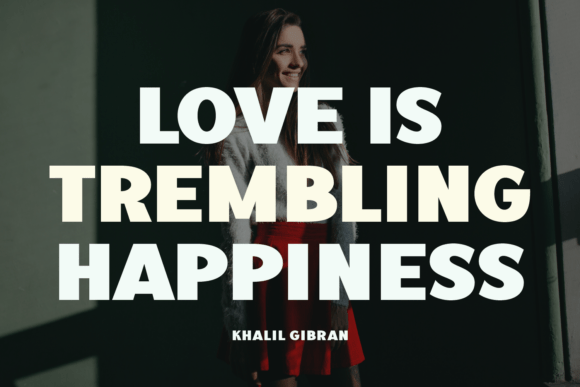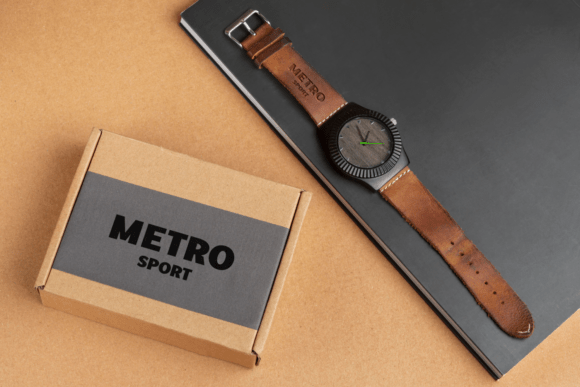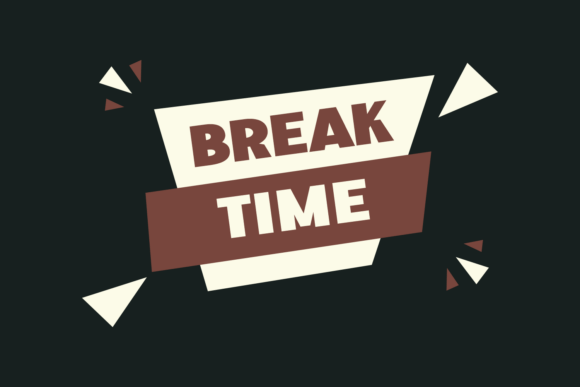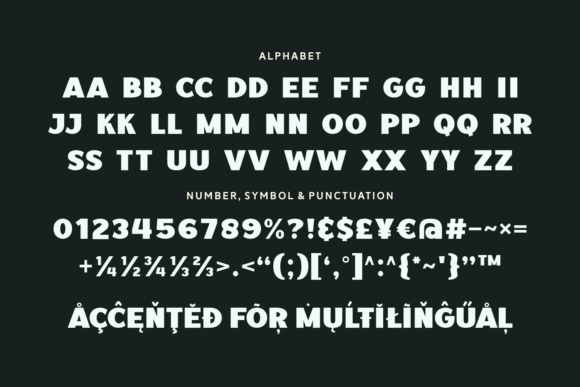
Introduction to Move Today Font
Move Today font is a heavy, impactful, bold sans-serif display typeface designed to convey strength, motivation, and a modern “hero” aesthetic.
This authoritative Move Today typeface features thick, solid strokes and tight kerning, making it a standout choice for fitness branding, motivational posters, and large-scale advertising Use the Move Today font to create headlines that carry weight and inspire action, whether on a gym wall or a digital banner.
Key Features of Move Today Font